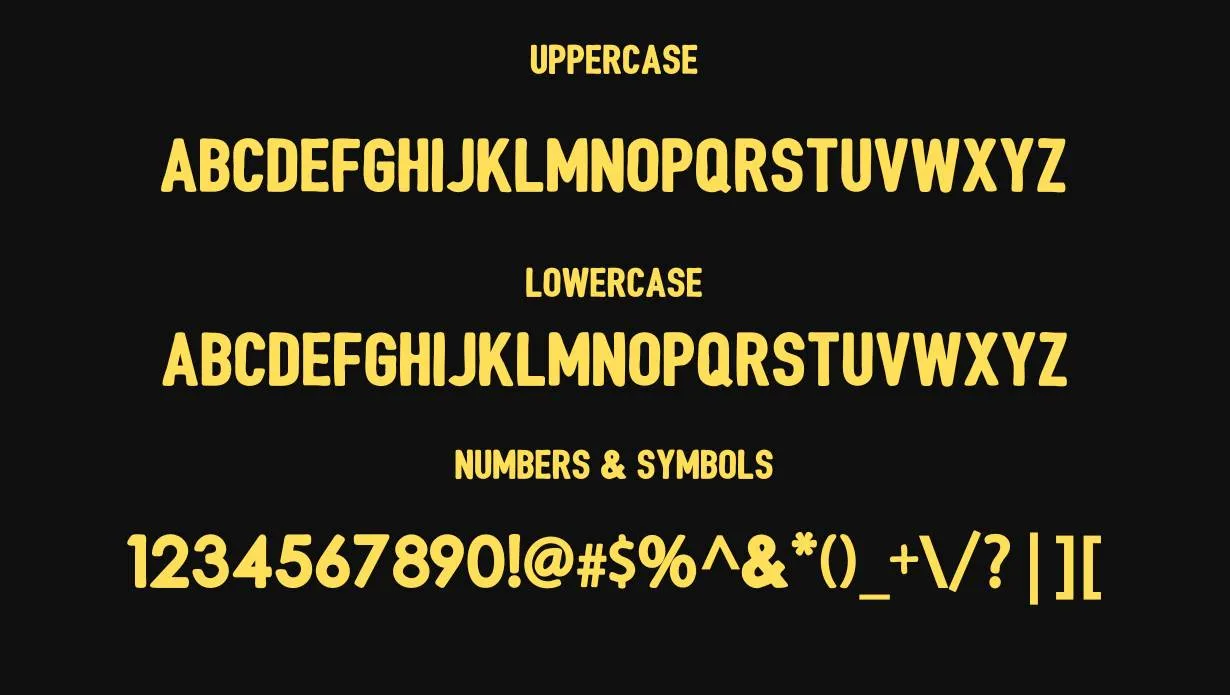
Bushcraft Font captures a rugged and adventurous aesthetic, perfect for outdoor-inspired designs, camping gear logos, and adventure blogs.
It typically supports file formats like TTF and OTF, ensuring ease of use across different design platforms. Its rugged and outdoorsy appearance adds a touch of wilderness and exploration to any design it graces.